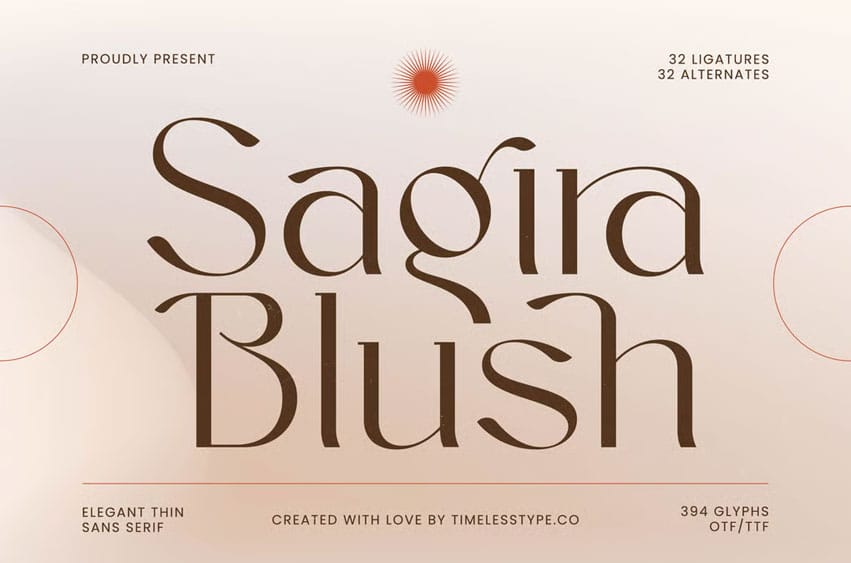
Sagira Blush Font is an elegant thin sans-serif display font crafted with refined curves, soft contrast, and delicate modern detailing. Designed for sophisticated visual identities, high-end editorials, beauty branding, feminine packaging, lookbooks, and minimalist luxury projects—this font blends simplicity with artistic expression.
Featuring 32 ligatures and 32 alternates, Sagira Blush offers graceful stylistic options that help designers build unique headlines with a polished, fluid touch. Its airy letterforms and subtle ornamental strokes add a distinctive charm perfect for premium aesthetics, soft layouts, wedding concepts, lifestyle branding, and modern advertising.